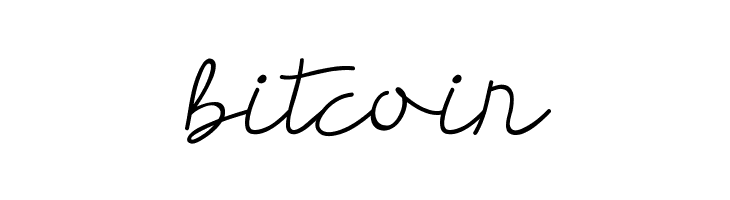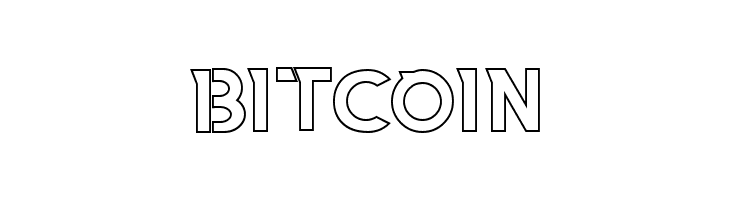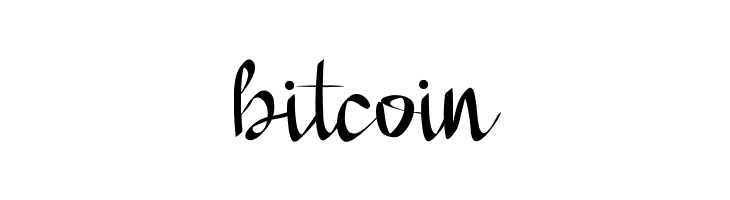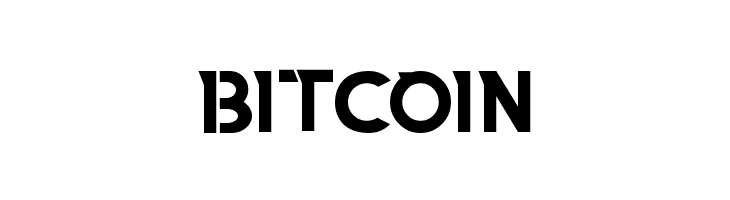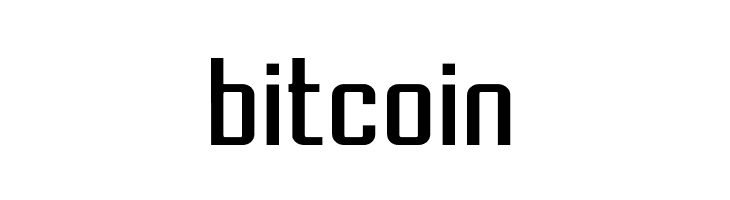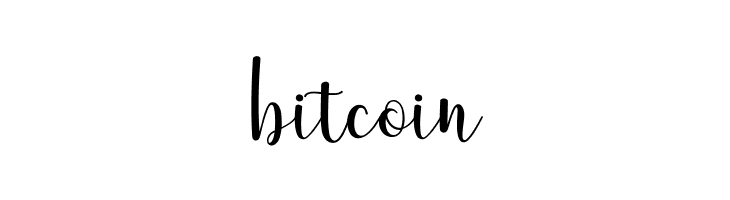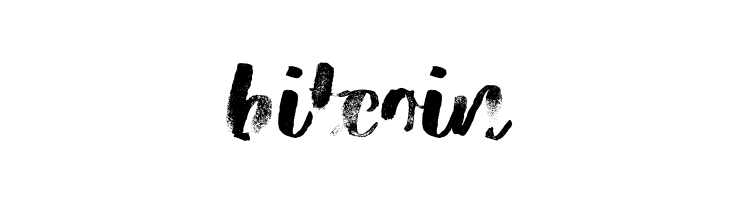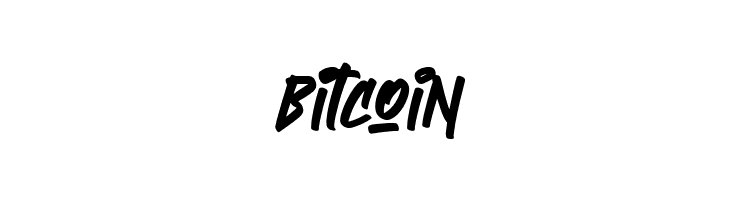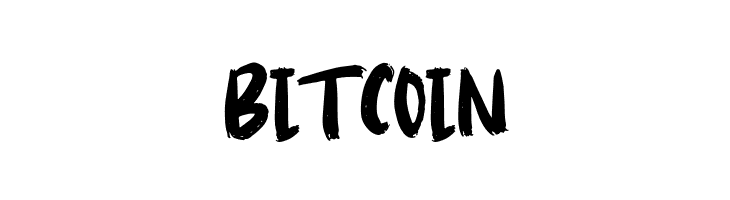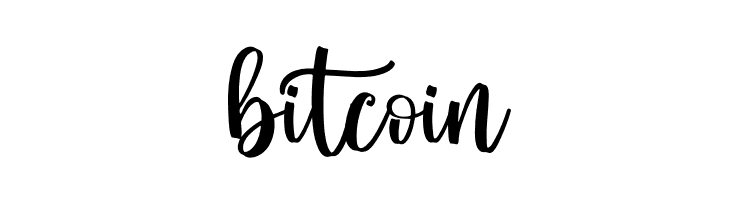
Velissa Font
A playful and whimsical font with rounded, bold letterforms.
Vellaiz Font
A bold, flowing script font with elegant, dynamic curves.
Vellaming Font
A graceful script font with flowing, interconnected strokes and decorative flourishes.
vellia - Personal Use Font
A lively, flowing script font with elegant, elongated letterforms.
VELLINE Font
A bold, modern sans-serif font with geometric influences.
Vellita Font
A charming and elegant script font with a hand-drawn appearance.
Vellizta Free Regular Font
An elegant, flowing script font with intricate loops and flourishes.
Velonia Font
A playful, casual handwritten font with smooth, rounded edges.
Velonyka Font
A playful, hand-drawn font with a whimsical and charming style.
VELTIC Font
A bold, textured font with a vintage, rugged style.
Velvet Vanilla Font
A playful and elegant handwritten font with fluid, connected characters.
Vemina Font
A flowing, cursive font with elegant, connected letters and a personal touch.
VenatorDemo Font
A bold, brush script font with a dynamic, handwritten style.
Vender Rustime Demo Display Grunge Font
A bold, hand-drawn grunge font with an energetic and dynamic style.
Vender Rustime Demo Script Font
An elegant and fluid script font with a cursive, handwritten style.
Vendeur Free Regular Font
A classic serif font with elegant, sharp serifs and moderate contrast, ideal for sophisticated designs.
Venettica-Regular Font
A graceful script font with fluid, cursive strokes and elegant curves.
Venomica Font
A bold, brush-style font with dynamic, high-contrast strokes.
Ventides Font
A bold, brush-style font with dynamic, handcrafted strokes.